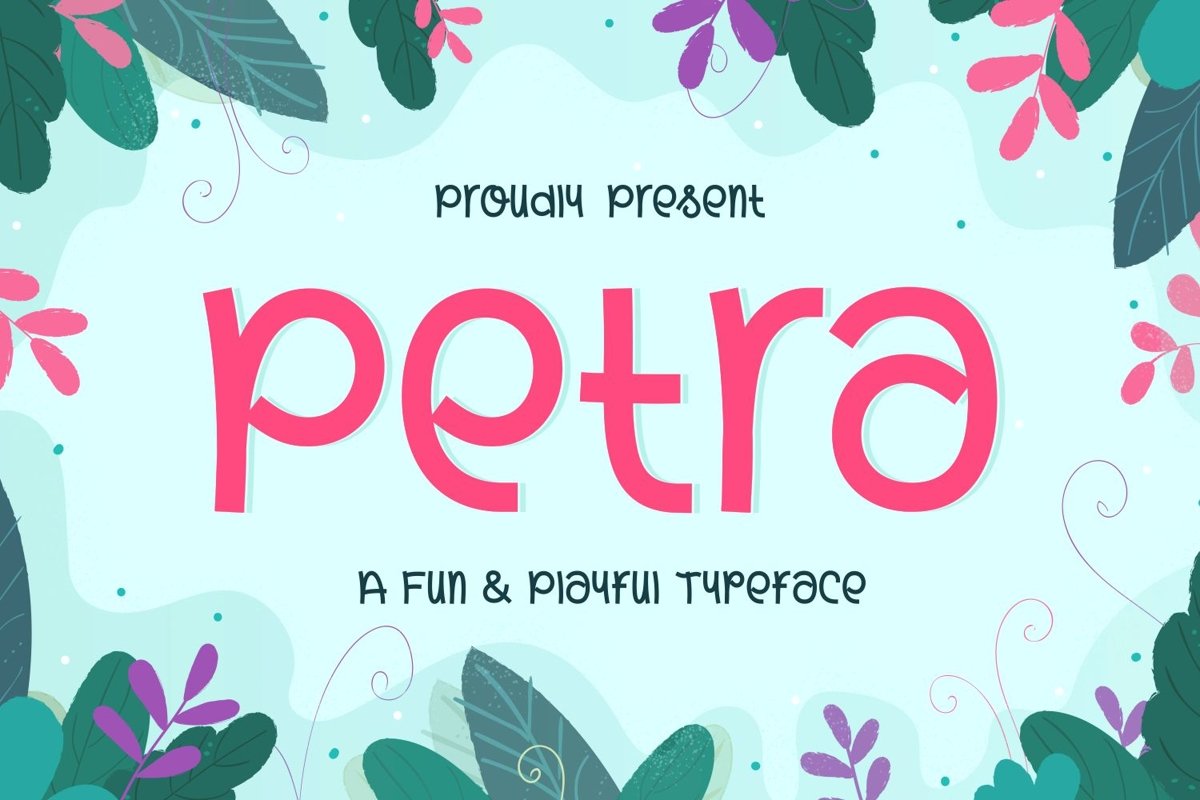
Petra is clean san serif display come with fun and cute themes. This font provides a completely unique shapes. It matches applies in some designs such as the logotype, brand, packaging, quotes, poster, shirt, book, badge and more custom design. The features uppercase, lowercase, numeral, punctuation & symbol, multilingual support, PUA encoded (fully accessible without additional design software). What includes : • Petra.ttf • Petra.otf